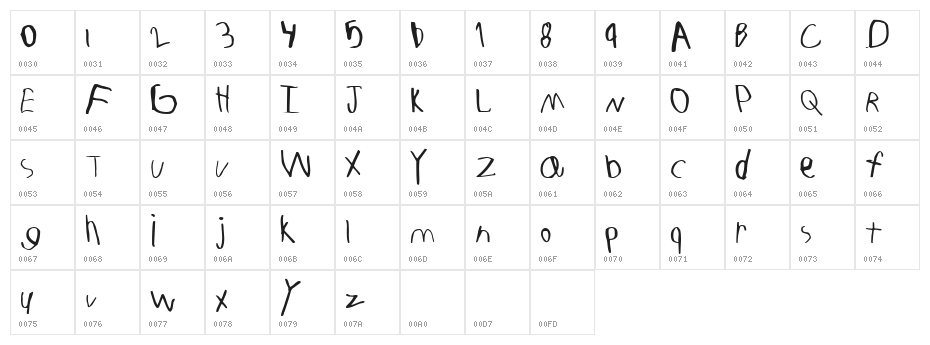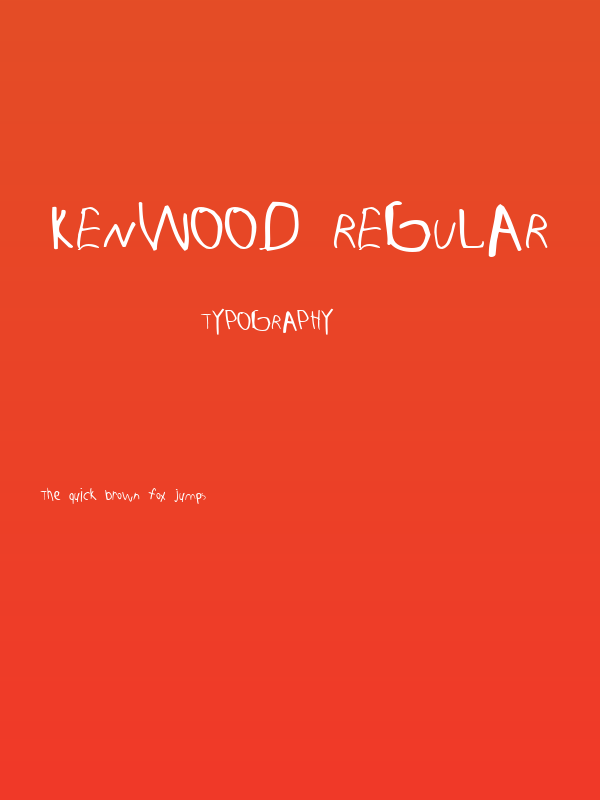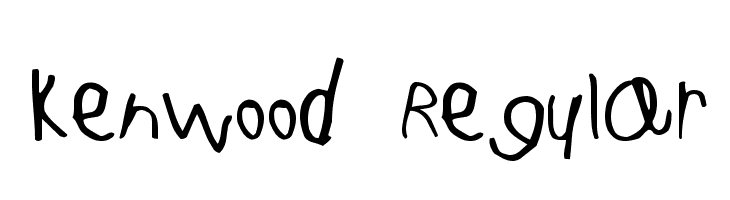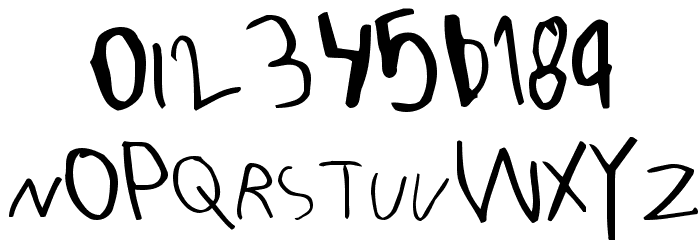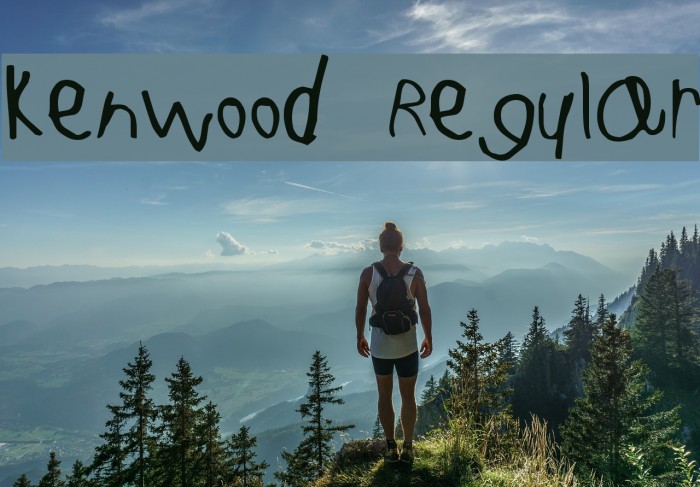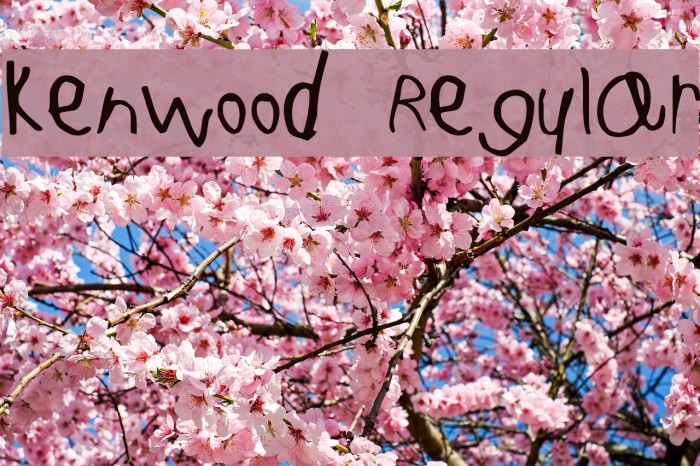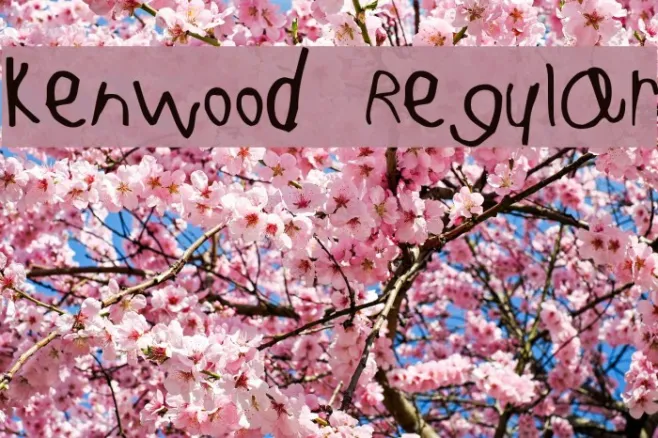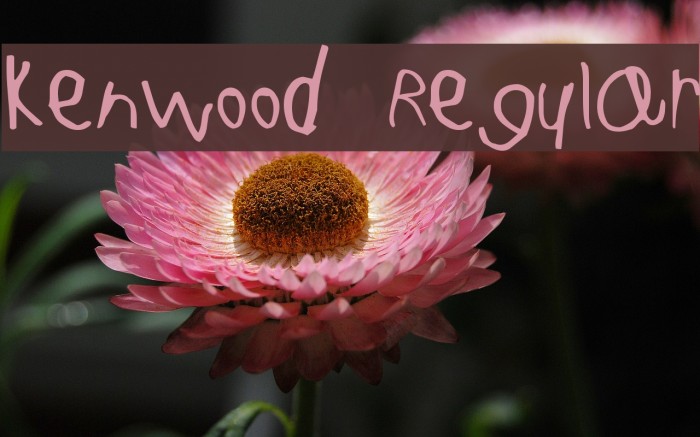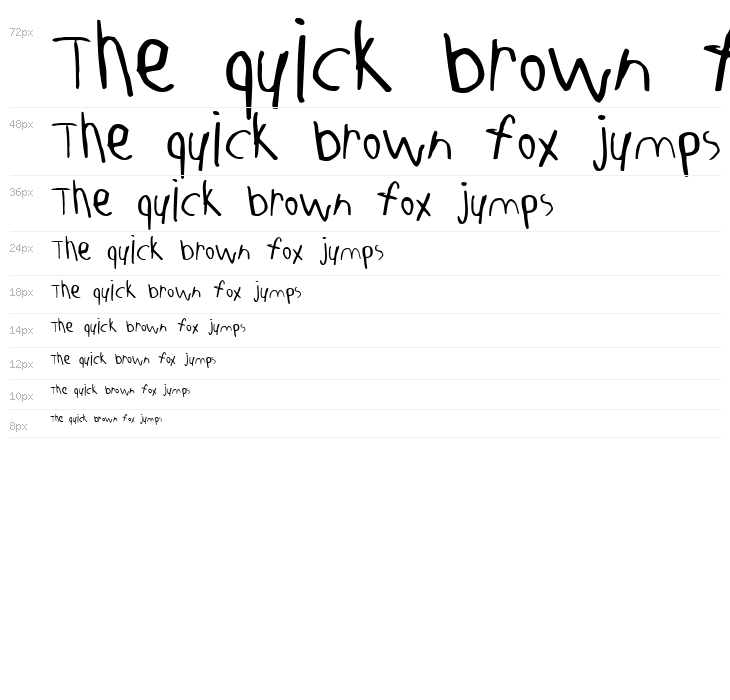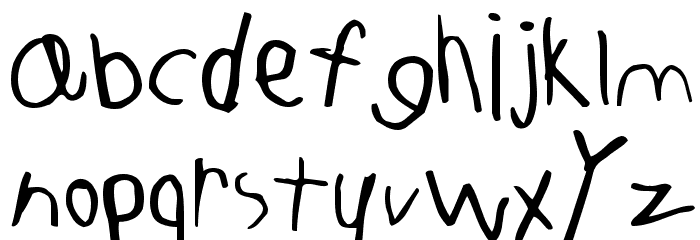
Kenwood Regular Font
Kenwood Regular Description
This font features a playful and informal handwritten style, characterized by its irregular and dynamic letterforms. The strokes vary in thickness, giving it a lively and spontaneous appearance. The uppercase and lowercase letters maintain a consistent flow, while the numbers and special characters add to its quirky charm. The overall design is casual and approachable, making it suitable for projects that require a personal touch. Its unique style captures attention while remaining legible, making it versatile for various creative applications.
| Use Case | Headlines, Logos, Informal text |
| Proposed Projects | Ideal for greeting cards, children's books, personal blogs, and creative branding projects. |